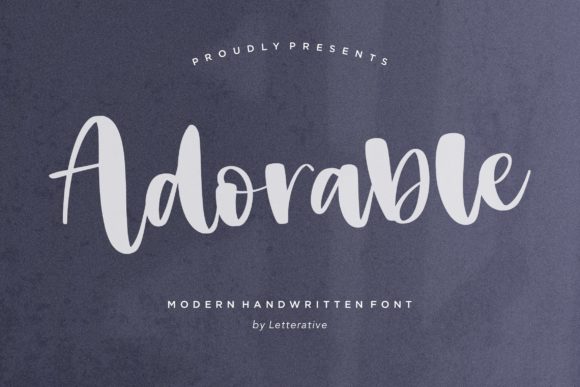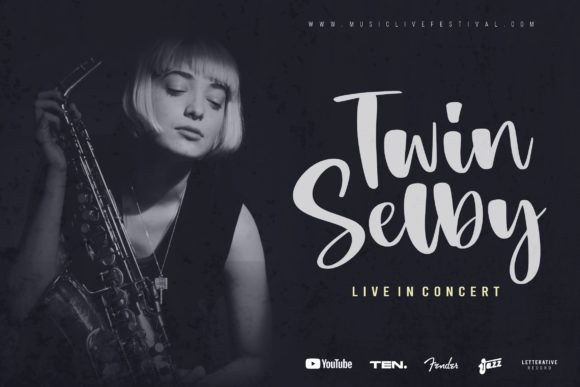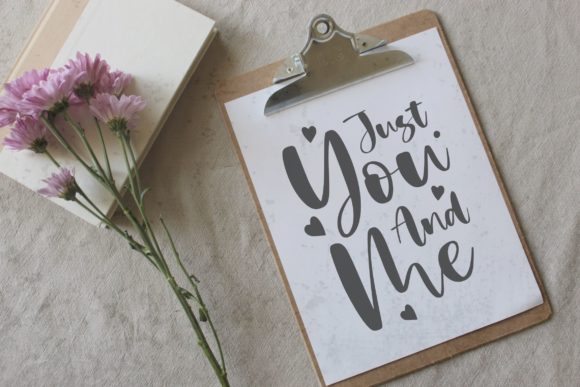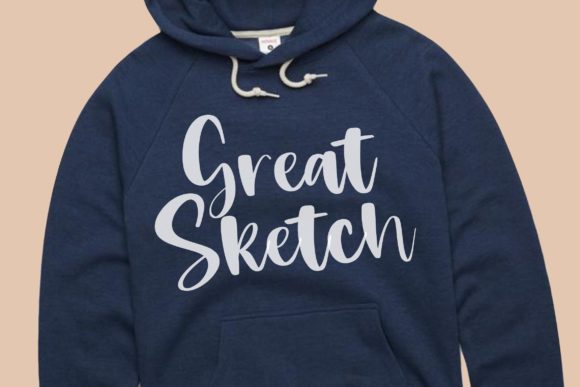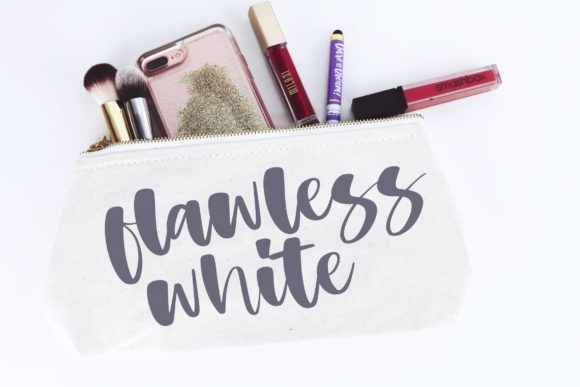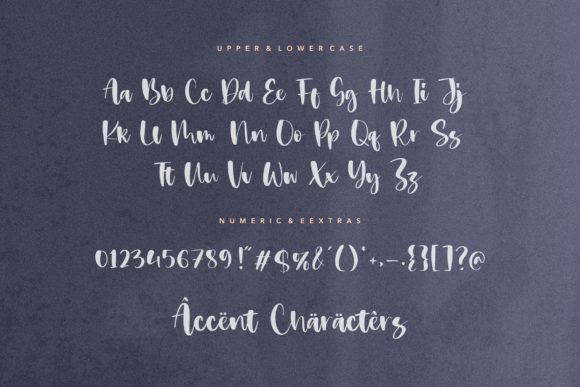
Adorable Font
About Adorable Font
Adorable is a bold and fun handwritten font. A little bit quirky, this font looks incredibly adept on a wide variety of contexts!